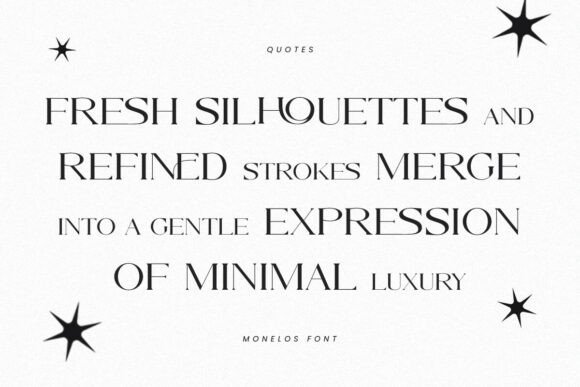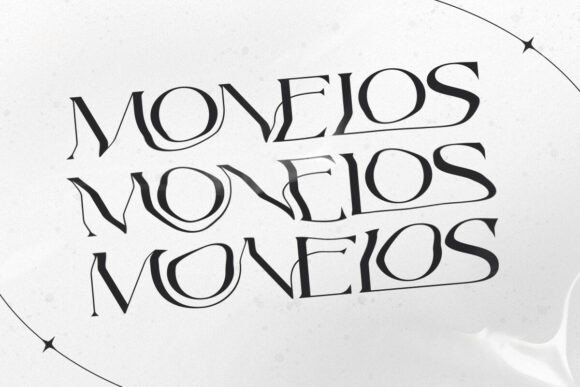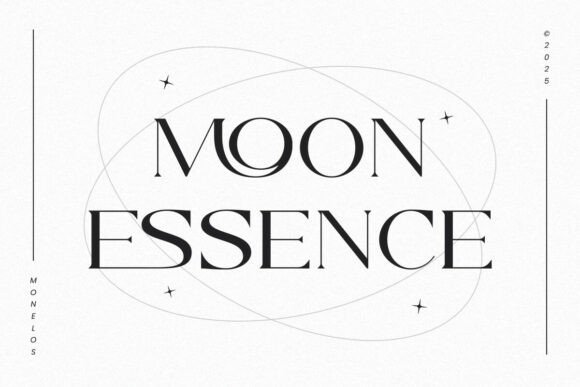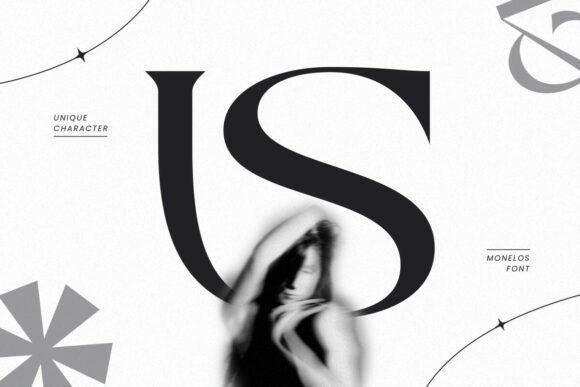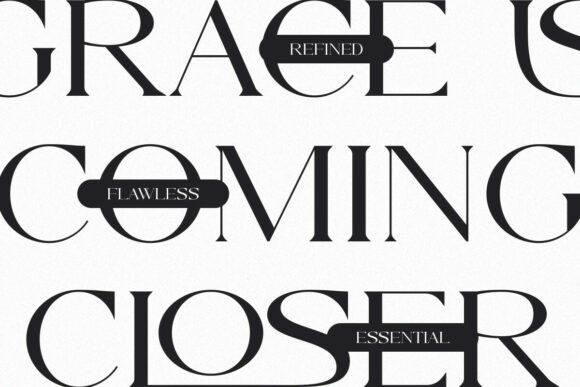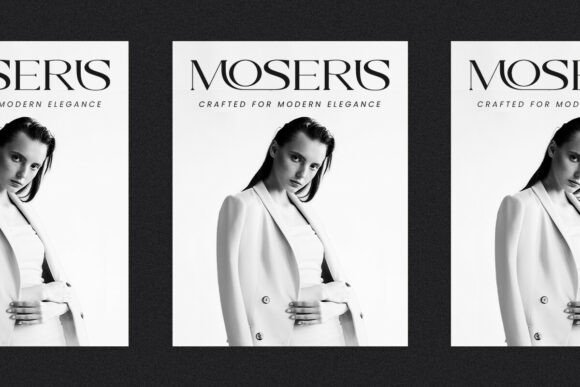
Introduction to Monelos Font
Monelos is a modern serif font featuring elegant curves and refined line details, crafted to bring a luxurious and contemporary look to any design project.
Its distinctive letterforms blend minimalism with artistic sophistication, making it a perfect choice for premium branding, editorial layouts, fashion logos, packaging, and high-end visual design With its sleek strokes, graceful serifs, and unique alternates, Monelos adds a timeless and stylish character to your typography.
Key Features of Monelos Font